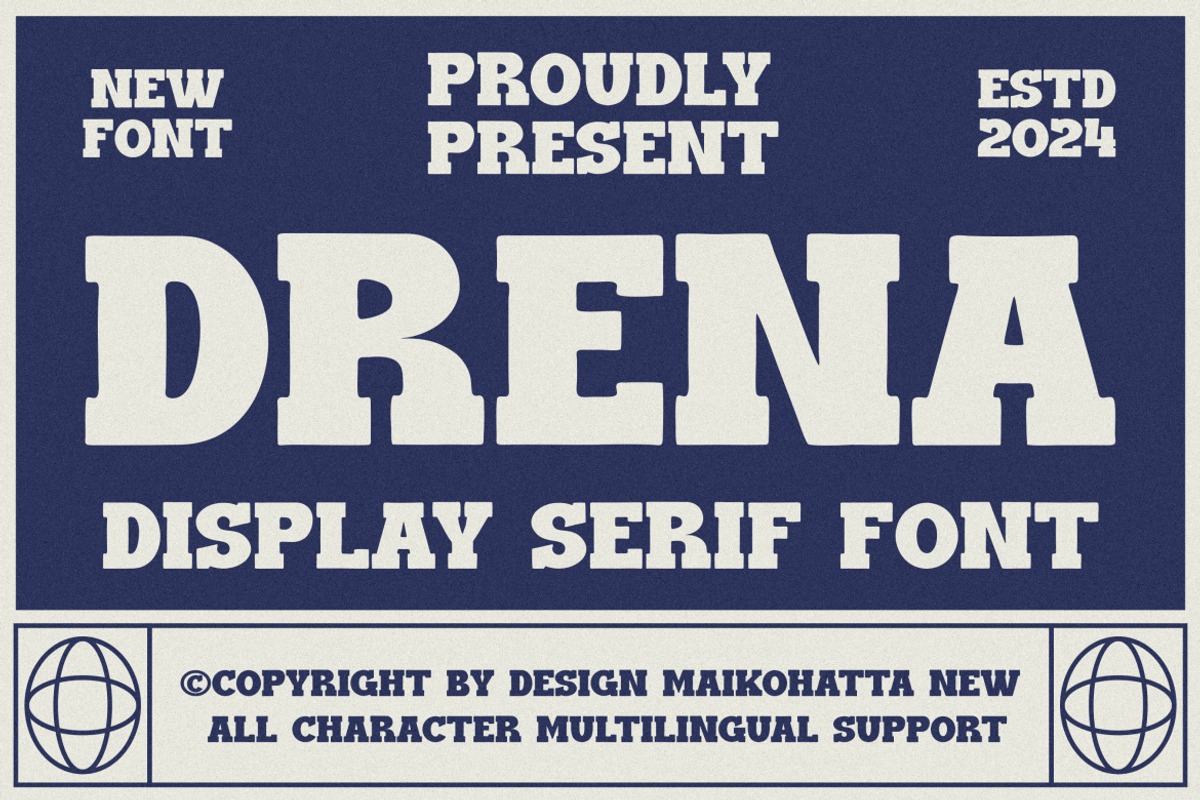
Drena Font
Drena Font is a flexible and reliable font created to fit multiple design needs, from branding and packaging to social media and editorial layouts. This font has a series of small or decorative projections called serifs at the ends of its characters. Serifs provide a more formal, classic, and easy-to-read appearance to printed text. Serif fonts are often used in formal documents, books, and print publications because of their good legibility at small text sizes.